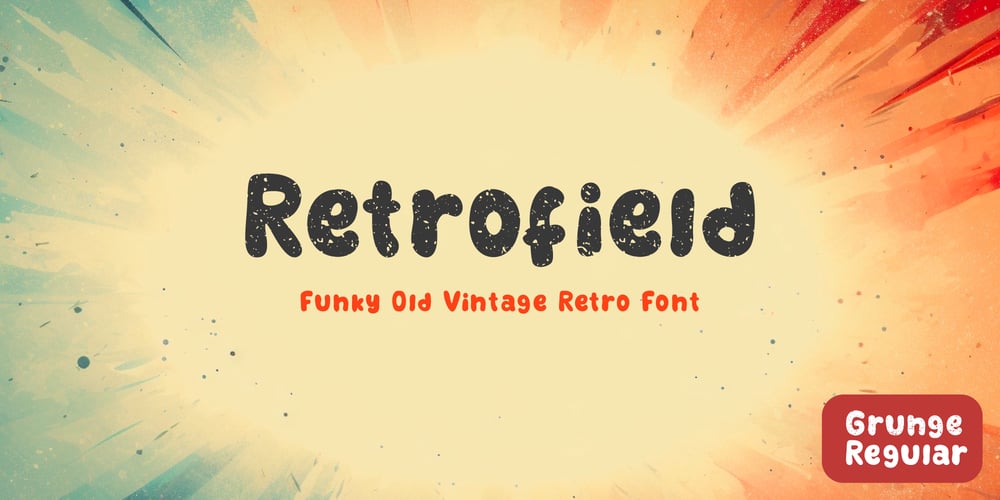
Retrofield
Retrofield font
Retrofield Font Family was designed by Agustian Eko Saputro, Aprilia Nurina Putri and published by Mightyfire. Retrofield contains 1 styles and family package options. Hello!Retrofield is here!With a cute, playful and bold looks, Retrofield bring happiness for both of writers and readers.If you want to write something fun, happy and cheerful, we suggest you to use Retrofield.Hope Retrofield can boost the appearance your text.Enjoy this font in your children book, birthday card, fun poster, comic book, and any other arts. 🙂